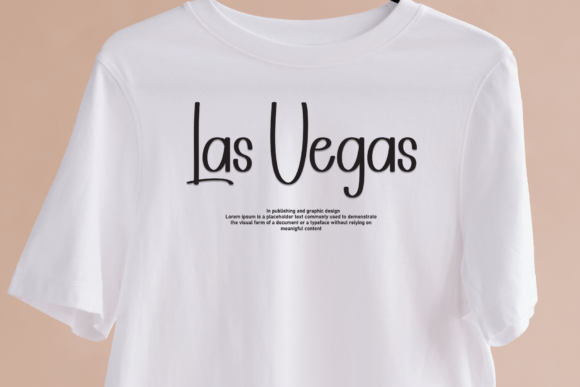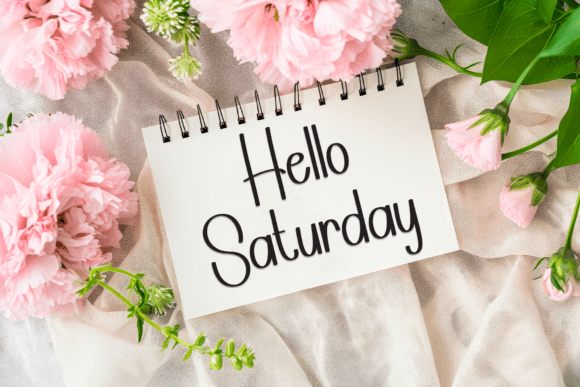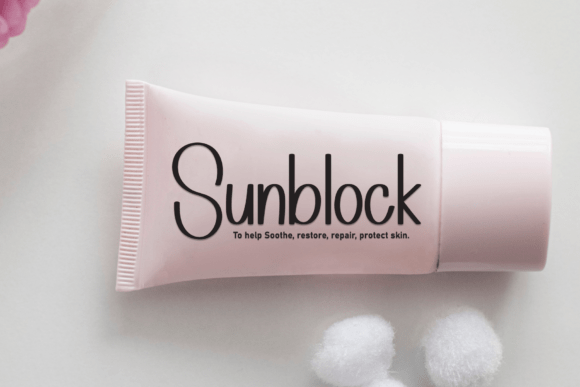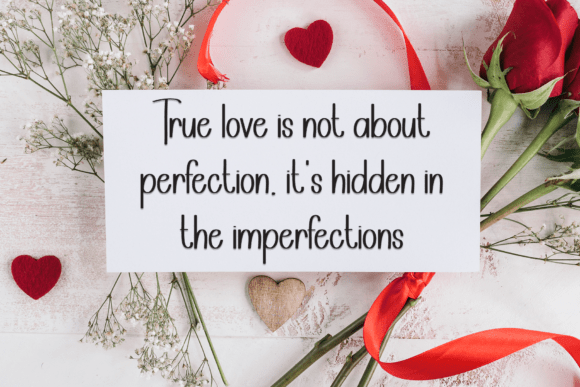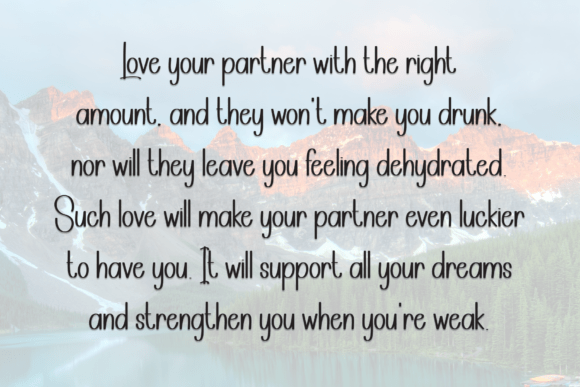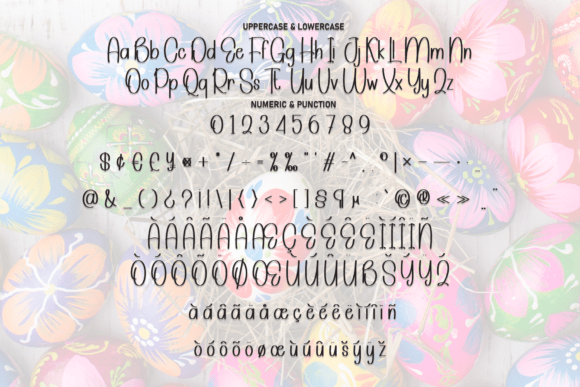
The Allure of Easter Font: Elevating Your Designs to New Heights
Do you remember the moment when you finally nailed the design for your best friend’s wedding invitation? The mix of emotions, the careful selection of colors, and the perfect font that brought it all together. That’s what Easter Font is all about – creating those special moments that make your designs truly unforgettable.
Easter Font is a hand-finished display font that exudes warmth and friendliness, perfect for adding a personal touch to your wedding invites, greeting cards, or any design project that demands brilliance and pleasure. This font is a valuable tool for designers, allowing them to transform their designs into artistic masterpieces that leave a lasting impression. With Easter Font, you can elevate your creative pursuits and make them truly special.
Easter Font Key Features
- Font Family: Easter Font is a sans-serif font family designed specifically for Easter celebrations.
- Character Set: The font family includes a wide range of characters, including uppercase and lowercase letters, numbers, and special characters.
- Unique Characteristics: Easter Font features a bright and colorful design with unique Easter-themed icons and graphics, making it ideal for Easter-themed designs and decorations.
- Font Styles: The font family includes multiple font styles, including regular, bold, italic, and bold italic, offering versatility for various design applications.
Easter Font Review
I recently had the chance to work with the Easter Font, and I must say it’s an interesting addition to any design project. Here are my thoughts on what works well and what could be improved.
- Unique and playful design: Easter Font is exactly what its name suggests – a fun, whimsical font perfect for Easter-themed projects or anything that needs a touch of springtime charm.
- Easy to use: The font is available in a range of styles, from bold to cursive, making it simple to find the perfect fit for your design.
- High-quality graphics: The font files are crisp and clear, ensuring that your designs will look great on any device.
- Limited versatility: While Easter Font is perfect for Easter-themed projects, its unique design might not be suitable for more formal or professional designs.
- No language support: The font only supports English and may not be ideal for multilingual projects.
- May not be suitable for small text: Due to its playful design, Easter Font might not be the best choice for small text or body copy.
Overall, Easter Font is a fun and creative addition to any design project. While it may have some limitations, its unique design and ease of use make it a great choice for Easter-themed projects or anything that needs a touch of springtime charm.
Easter Egg Font: A Guide to Adding a Touch of Whimsy
Tips and Tricks
To get the most out of the Easter Egg Font, try combining it with other whimsical design elements, such as Easter-themed graphics or pastel colors.
The Easter Egg Font is perfect for:
- Creating Easter-themed invitations and party decor.
- Adding a touch of whimsy to holiday cards and gift tags.
- Designing Easter-themed social media graphics and ads.